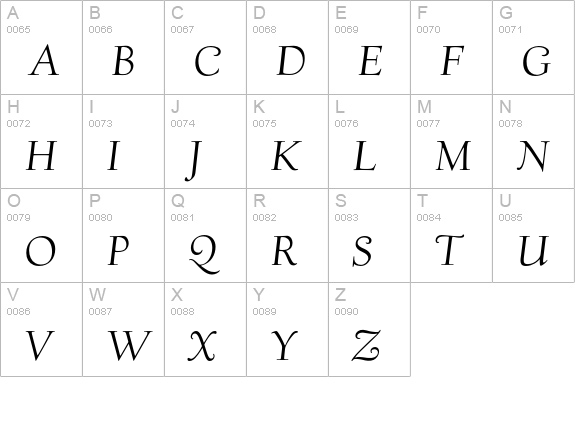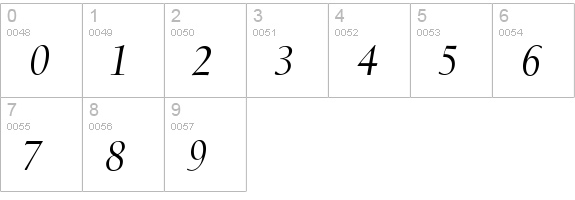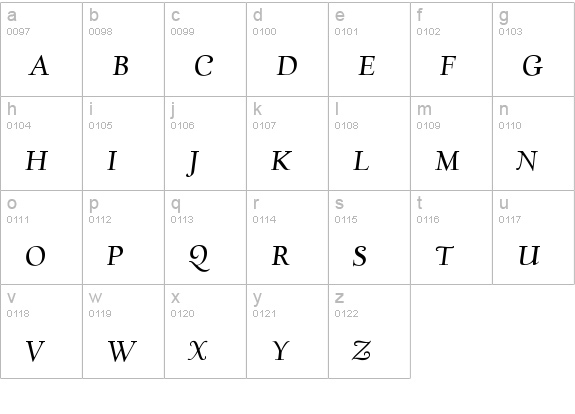
Introducing Village-ItalicSmallcapsTitling font, a stylish and sophisticated typeface that exudes elegance and charm. This font is the perfect choice for those seeking a unique and distinctive look for their design projects. With its delicate and slender letterforms, Village-ItalicSmallcapsTitling font effortlessly combines classic appeal with a modern twist. Its italicized small caps add a touch of sophistication and lend a refined air to any text. One of the standout features of Village-ItalicSmallcapsTitling font is its versatility. Whether you're designing a logo, creating a headline, or crafting a wedding invitation, this font will elevate your design to new heights. Its clean lines and graceful curves make it visually appealing, while its legibility ensures that your message is conveyed effectively. And the best part? Village-ItalicSmallcapsTitling font is available for free download at FontsMarket.com. That's right, you can access this stunning font without spending a dime. FontsMarket.com is a trusted source for high-quality fonts, and they make it easy to find and download the fonts you need for your projects. So, why wait? Enhance your designs with the timeless beauty of Village-ItalicSmallcapsTitling font. Download it for free at FontsMarket.com and elevate your typography to a whole new level of sophistication.